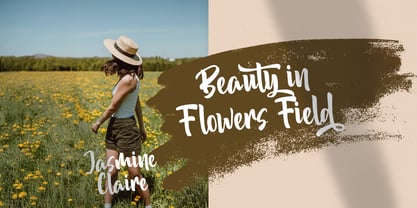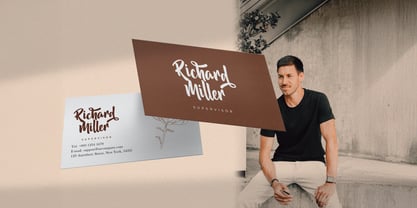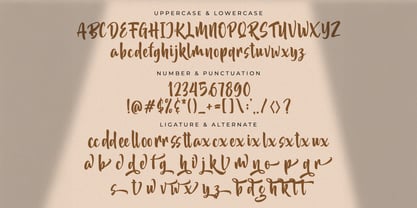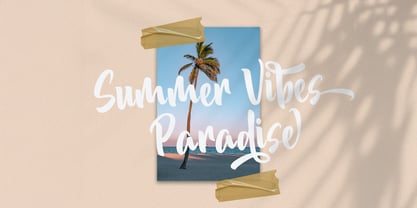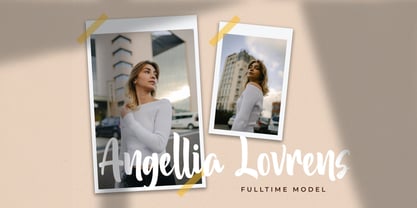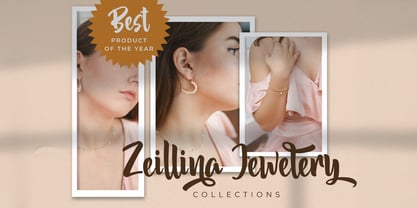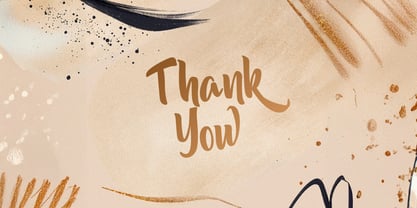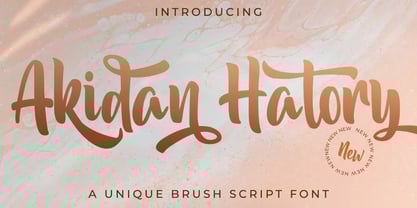
Akidan Hatory
von Stringlabs Creative Studio
Die Schriftfamilie Akidan Hatory wurde von Virgiawan Listanto entworfen und von Stringlabs Creative Studio veröffentlicht. Akidan Hatory enthält 1 Stile.
Akidan Hatory is a bold script font with fierce strokes and confident curves, designed to make a strong statement. With a perfect blend of vintage charm and modern attitude, this font is ideal for projects that need energy, elegance, and edge all at once.
Designer: Virgiawan Listanto
Herausgeber: Stringlabs Creative Studio
Foundry: Stringlabs Creative Studio
Eigentümer des Designs: Stringlabs Creative Studio